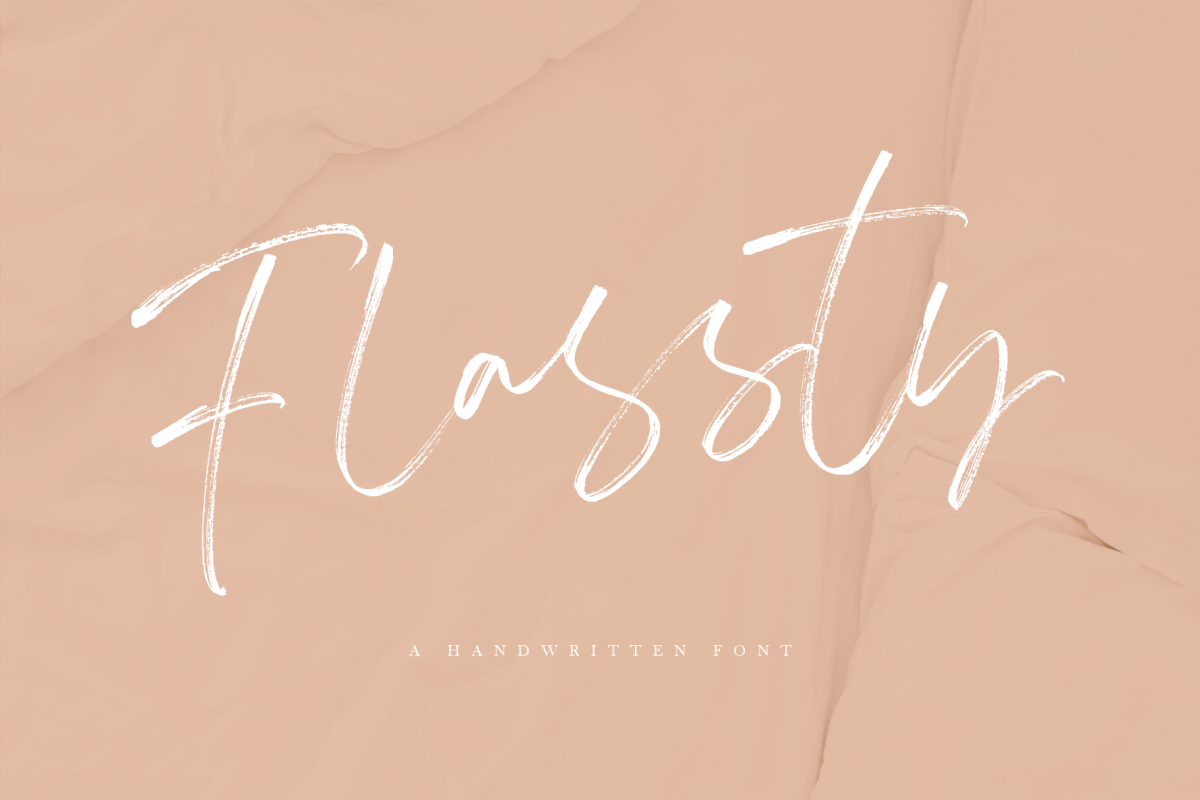
Flassty - Handwritten Font
Flassty
introducing the new font Flassty Handwritten Font is a Hanwritten font with a textured brush and a thin size, matching soft quotes and looking feminine. Flassty is made by handwriting on paper with a coarse type brush, to produce a consistent texture.
Flassty also has ligature which is very suitable if you don't really like lowercase letters and want to change some letters with available ligature letters. and available lowercase alternatives that you can change according to your taste.
Flassty handwritten font can also be used for various projects such as stationery invitations, social media, logos, weddings, branding, graphic design with the addition of several binders and swashes. and can be combined with various types of serif fonts to perfect the project you want to work on.Files included: